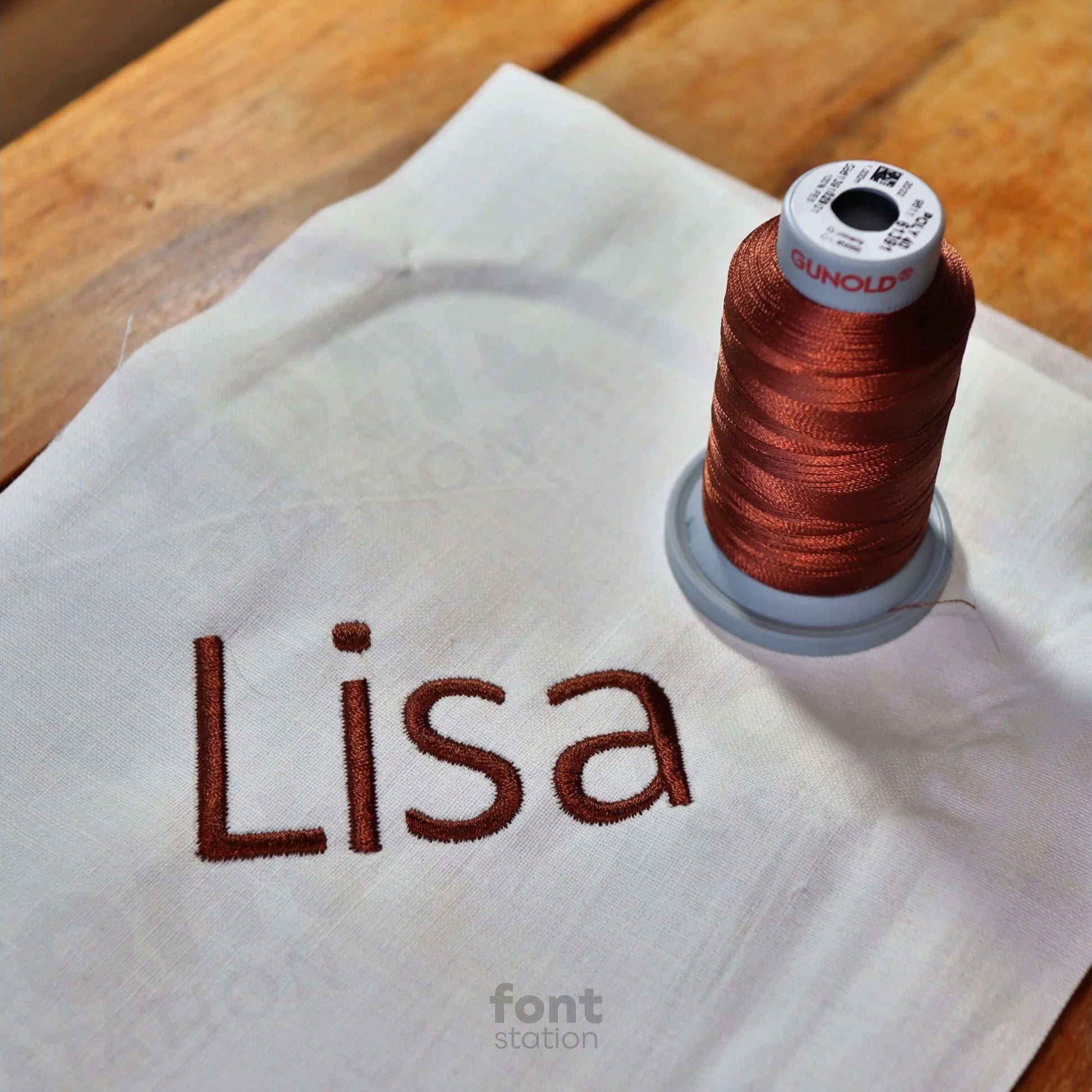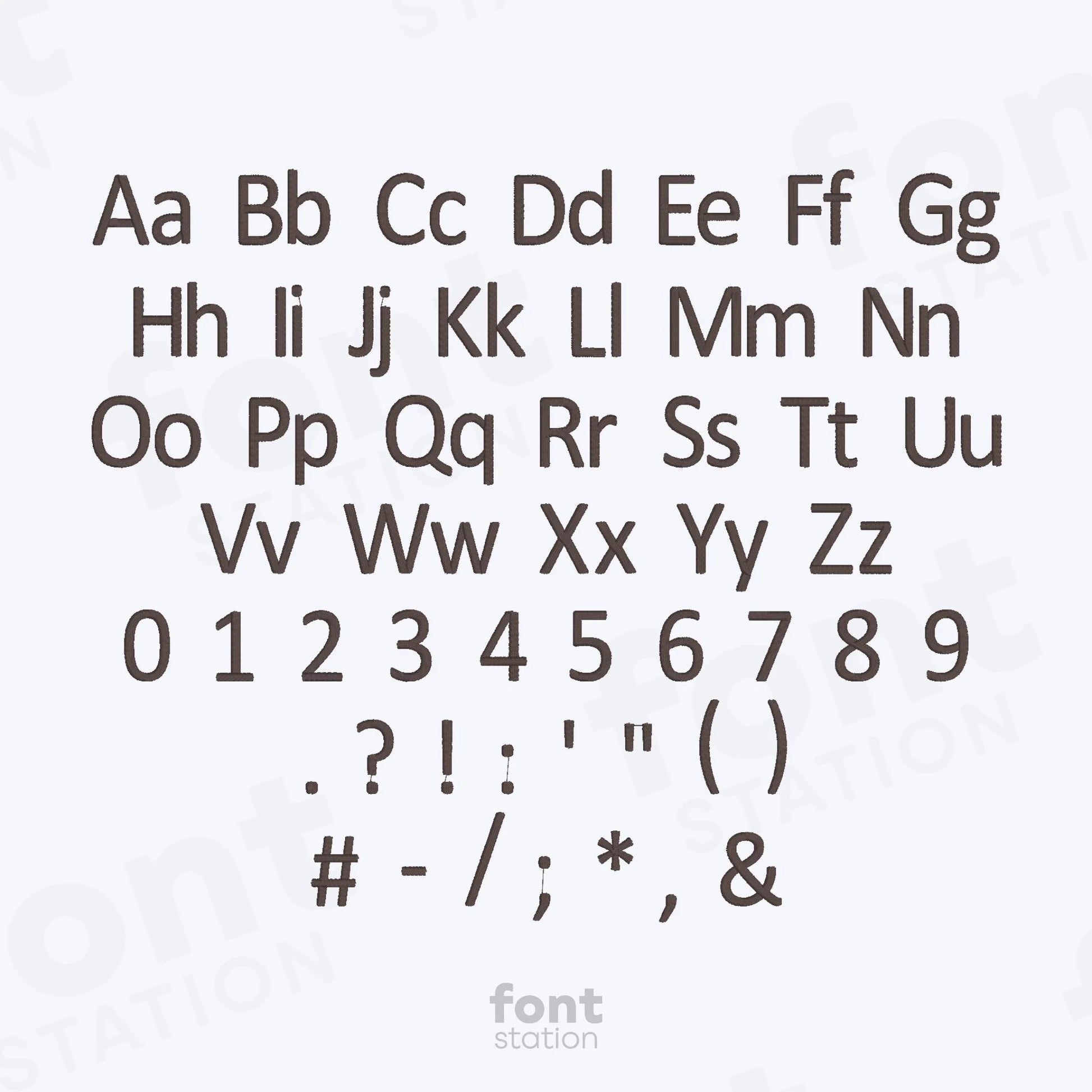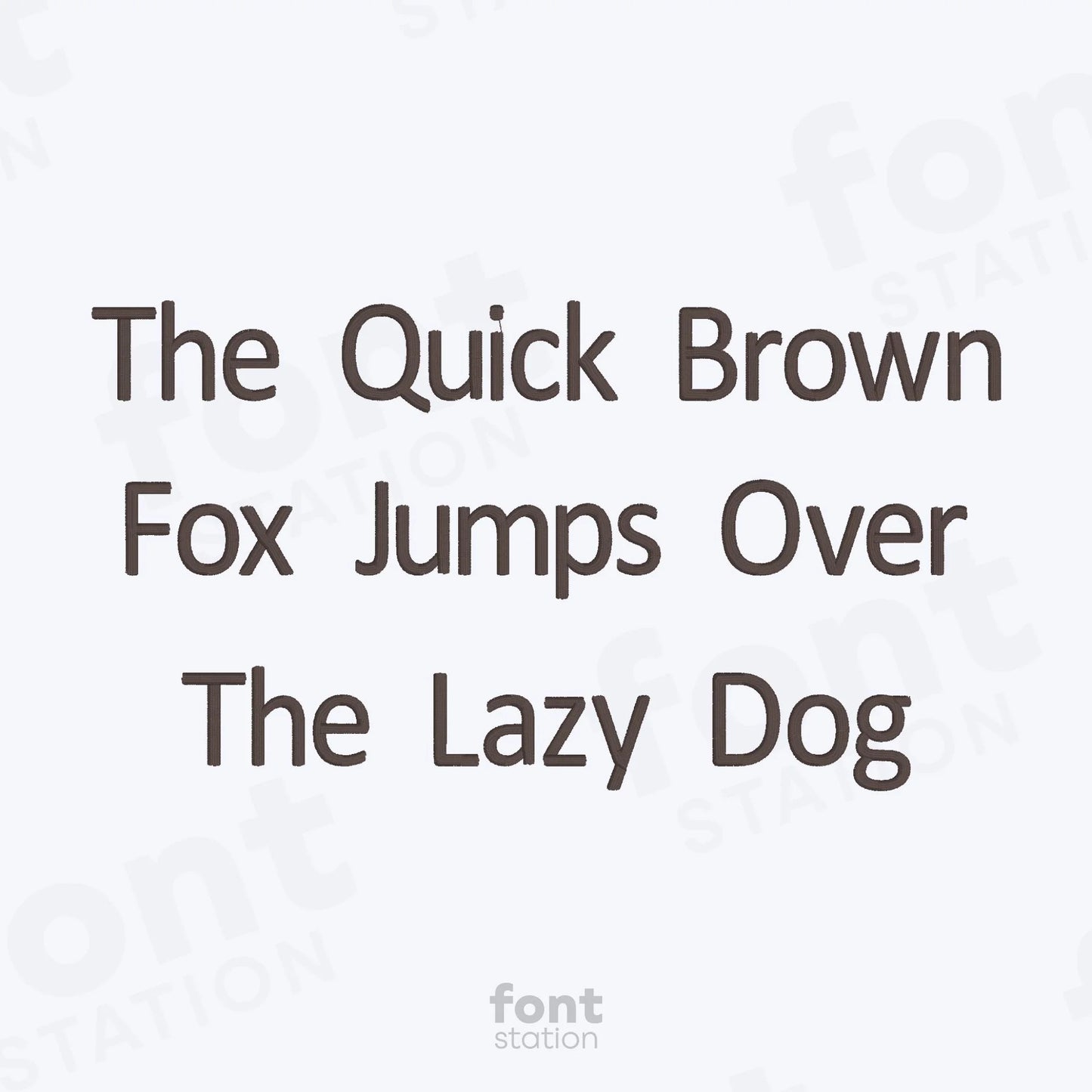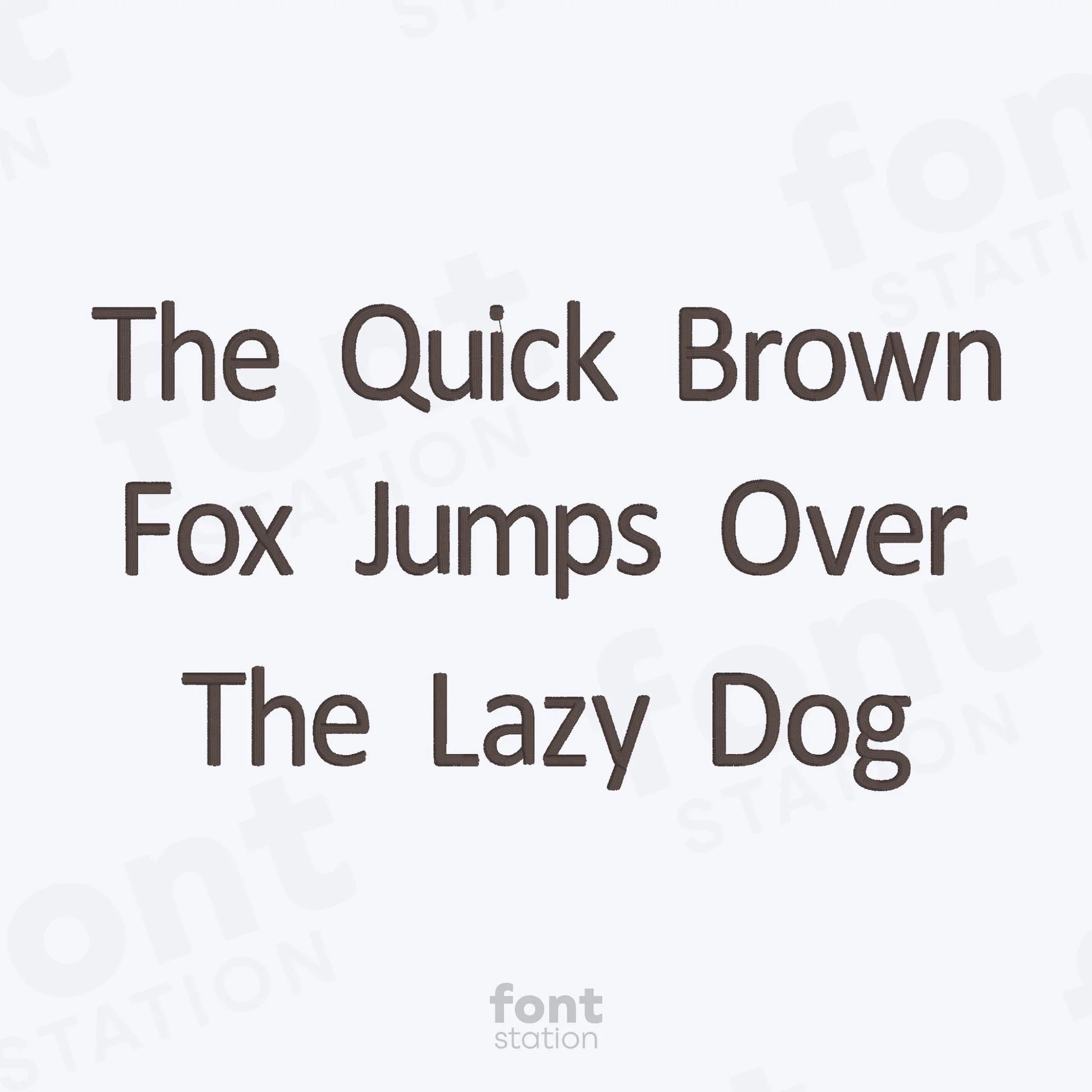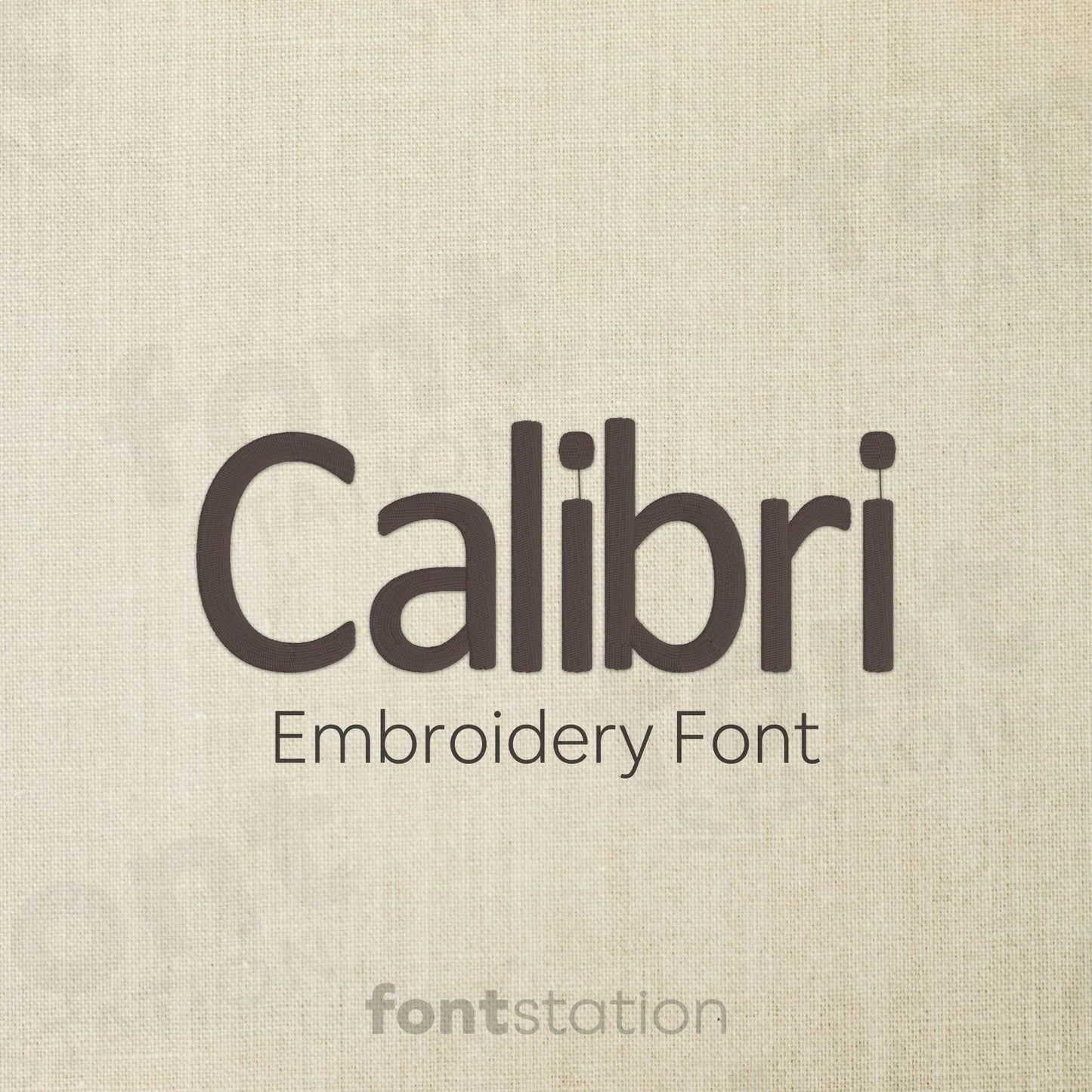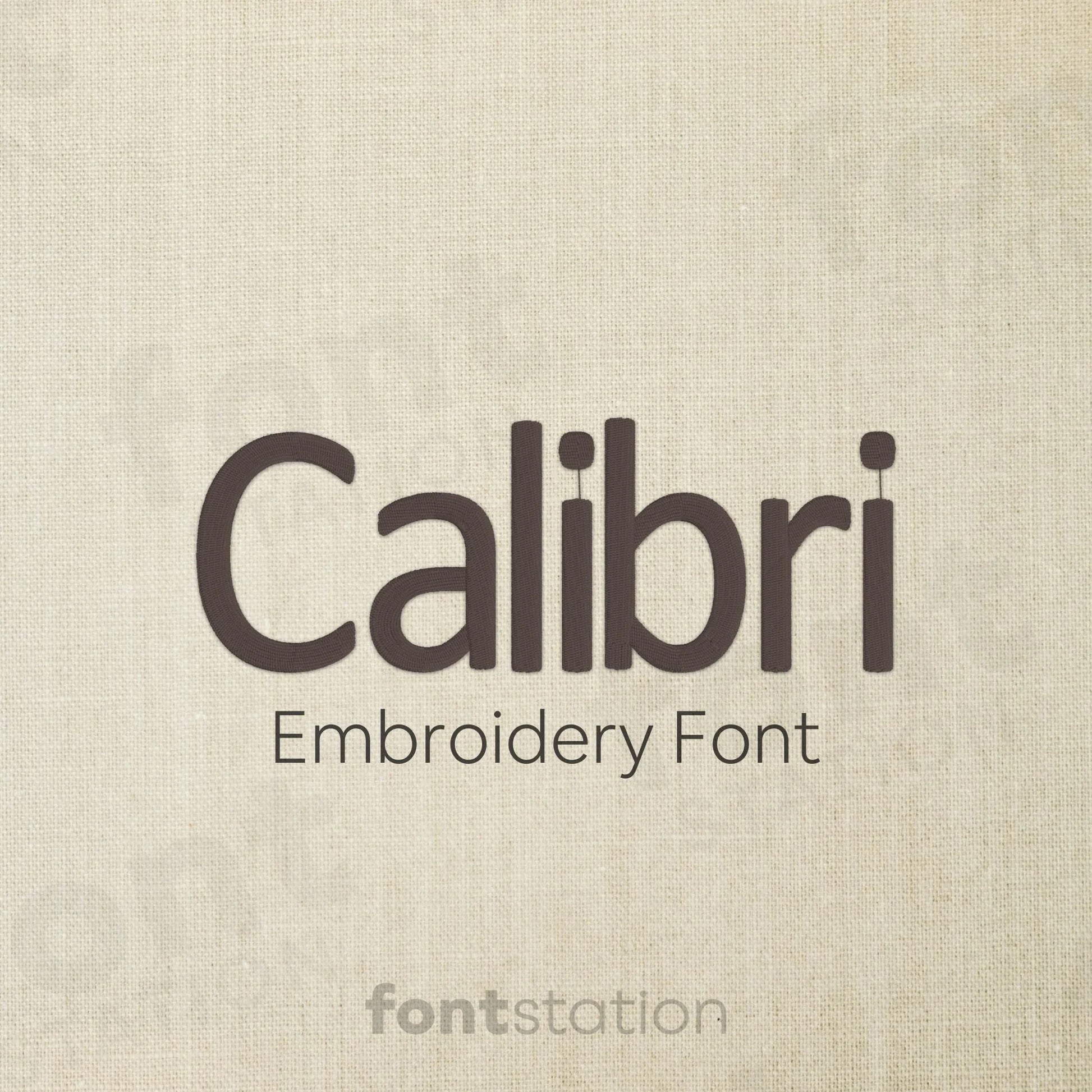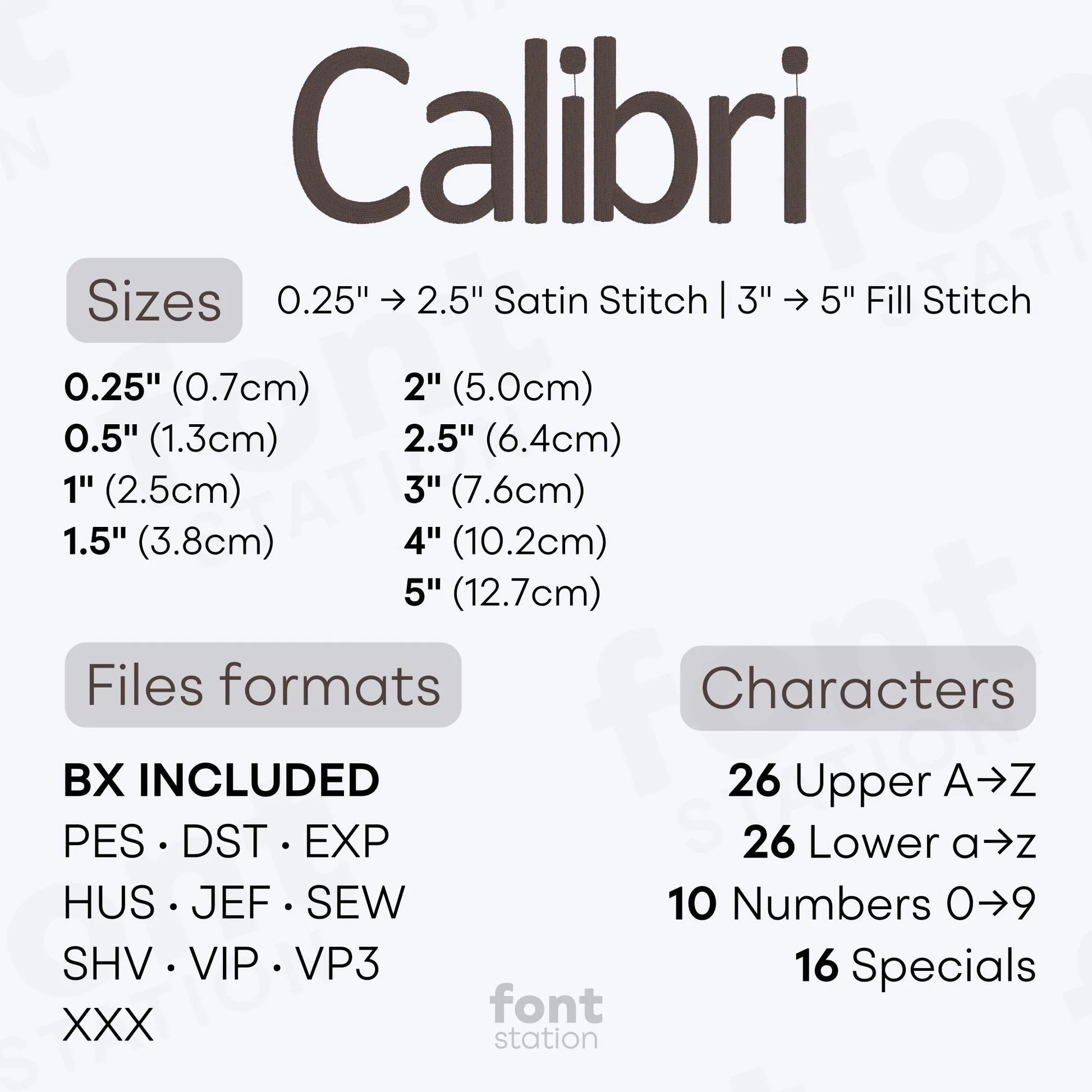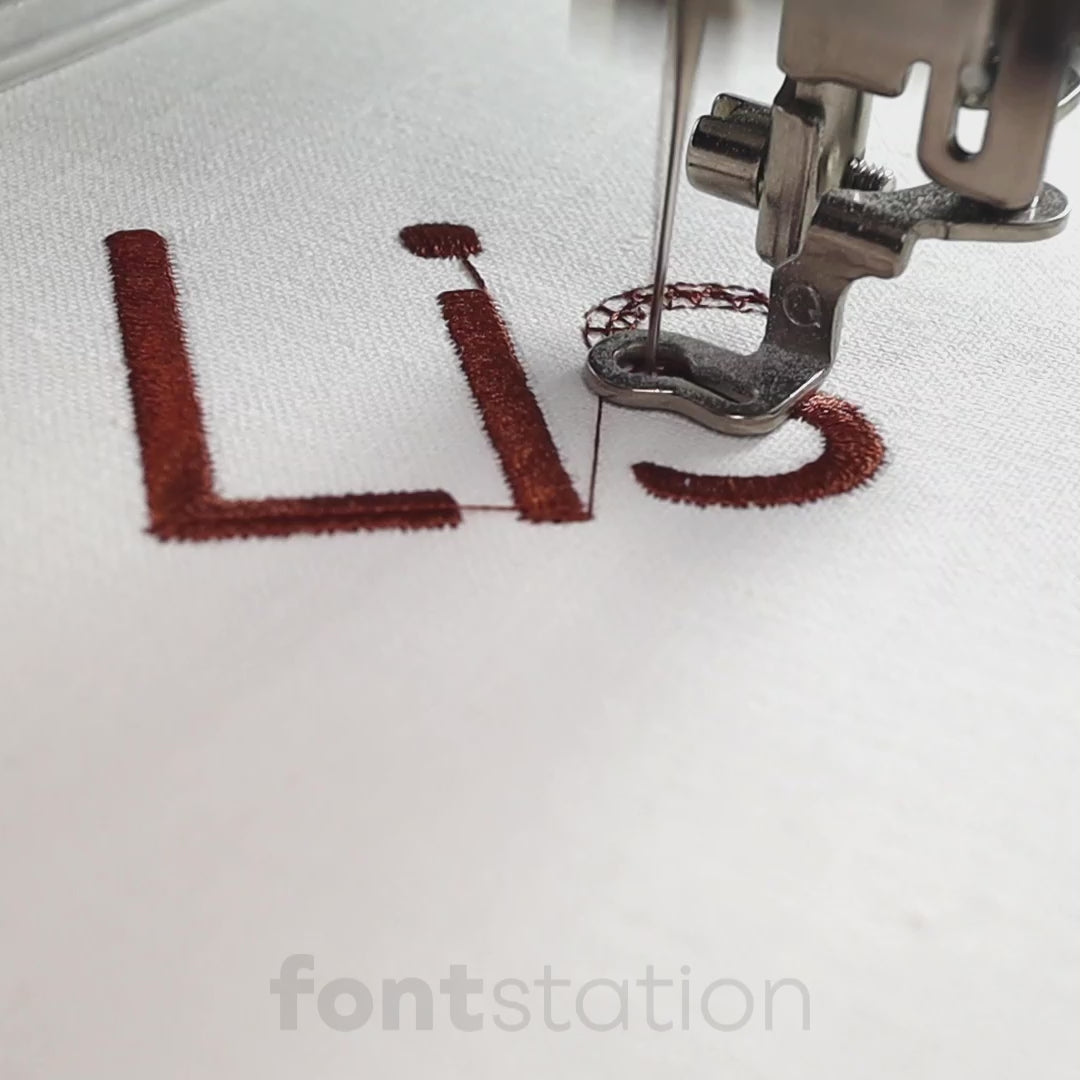
Calibri Embroidery Font
Introducing our Calibri embroidery font - a clean, sans serif alphabet designed to stitch beautifully on your embroidery machine. These simple, modern letters are perfect for any project, adding a minimalist look to personalized designs, monograms, and more.
About the Calibri Embroidery Font
Our Calibri embroidery font delivers a clean, modern look for any embroidery project.
This minimalist embroidery font features a simple, sans serif alphabet that's perfect for professional logos, personalized gifts, and sleek monogrammed designs. The Calibri embroidery letters are carefully digitized for smooth, consistent stitching on your embroidery machine. Available in BX, PES, DST, JEF, EXP, HUS, and more, this versatile font is machine-ready and ideal for adding a refined, modern touch to any creative project.